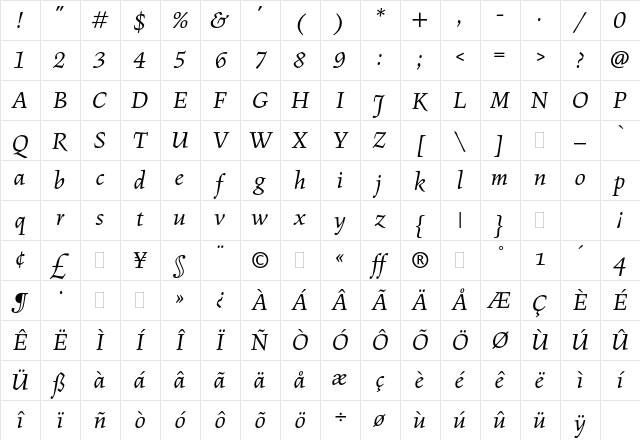
Figural Book Italic Plain
Design Context for Figural Book Italic
Figural Book Italic is a composed and adaptable typeface that performs quietly and consistently across a wide range of design contexts. The slanted form adds forward momentum and visual energy.
Pro Tip: Use Figural Book Italic for emphasis, pull quotes, and subheadings where its slanted energy can add rhythm to the layout.